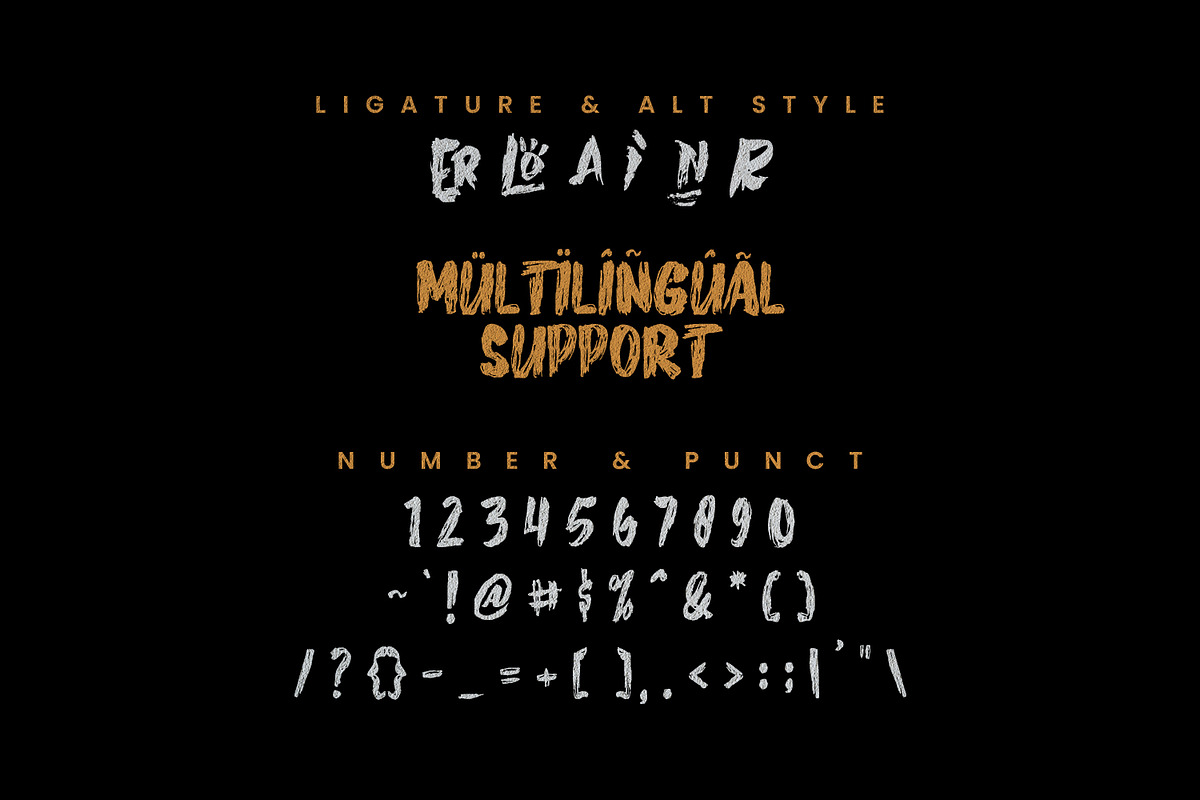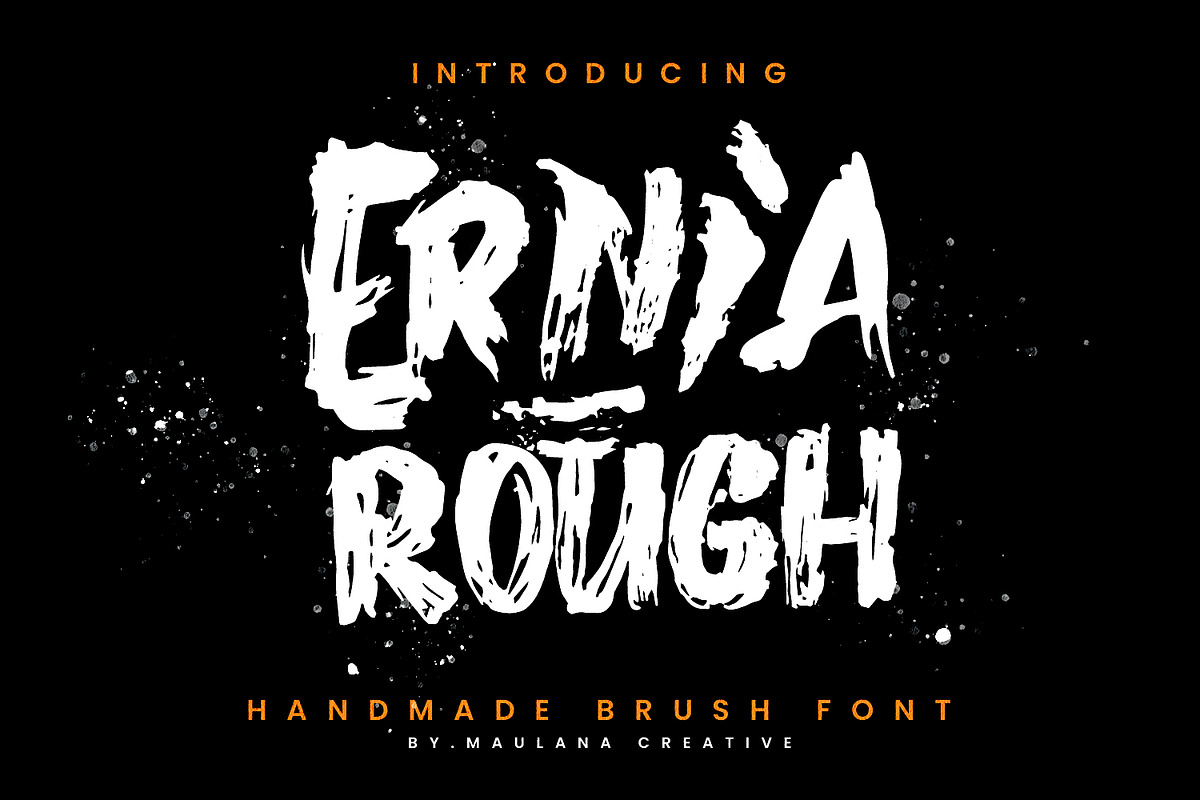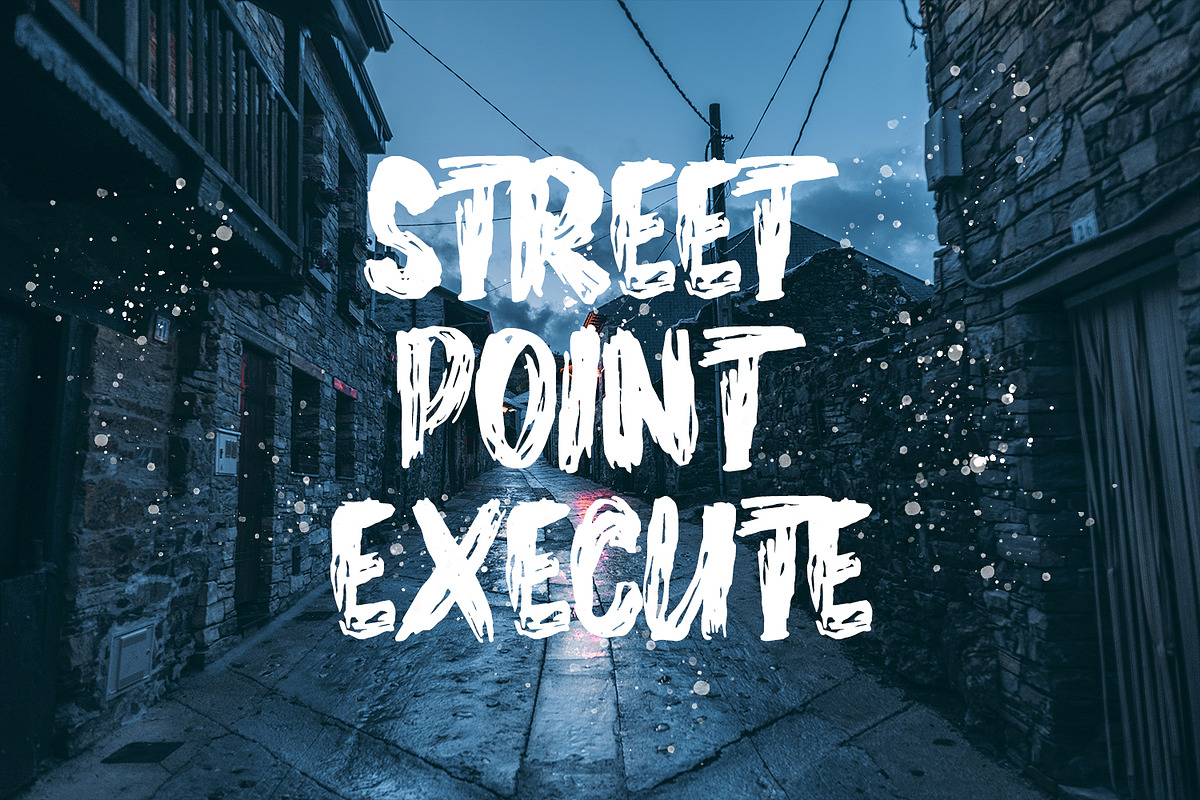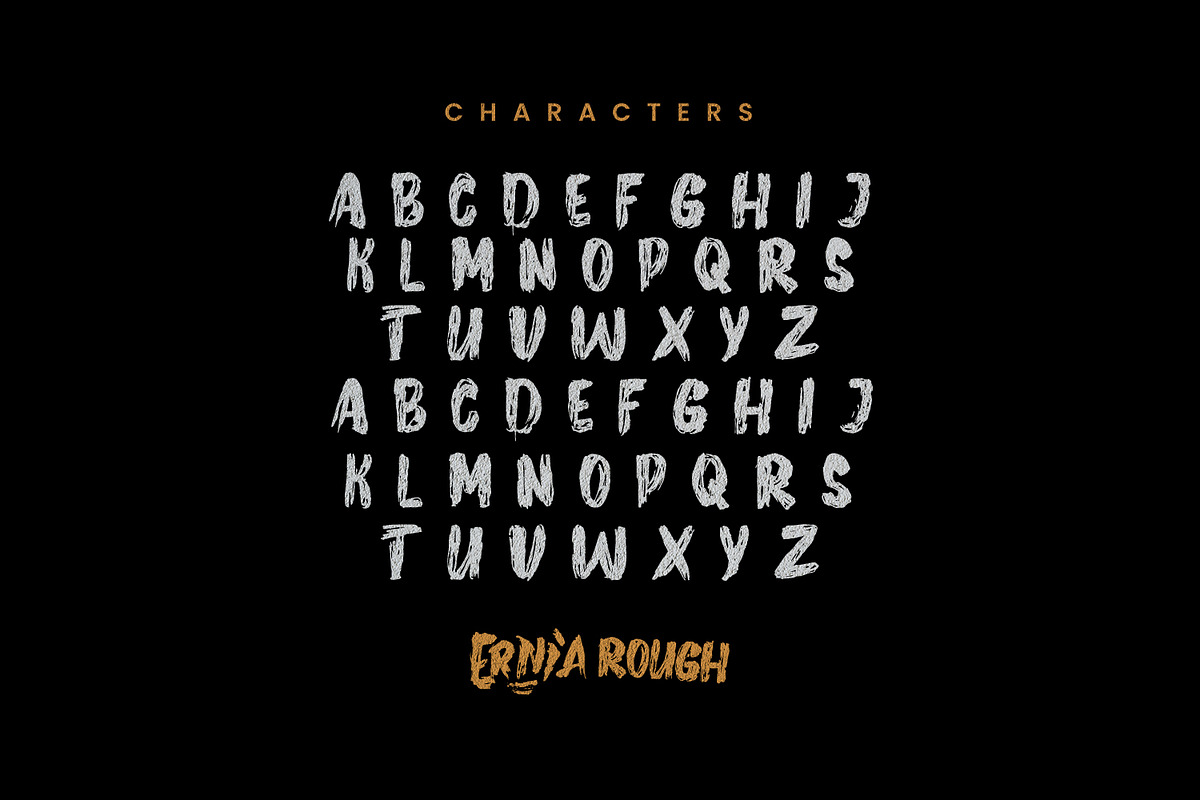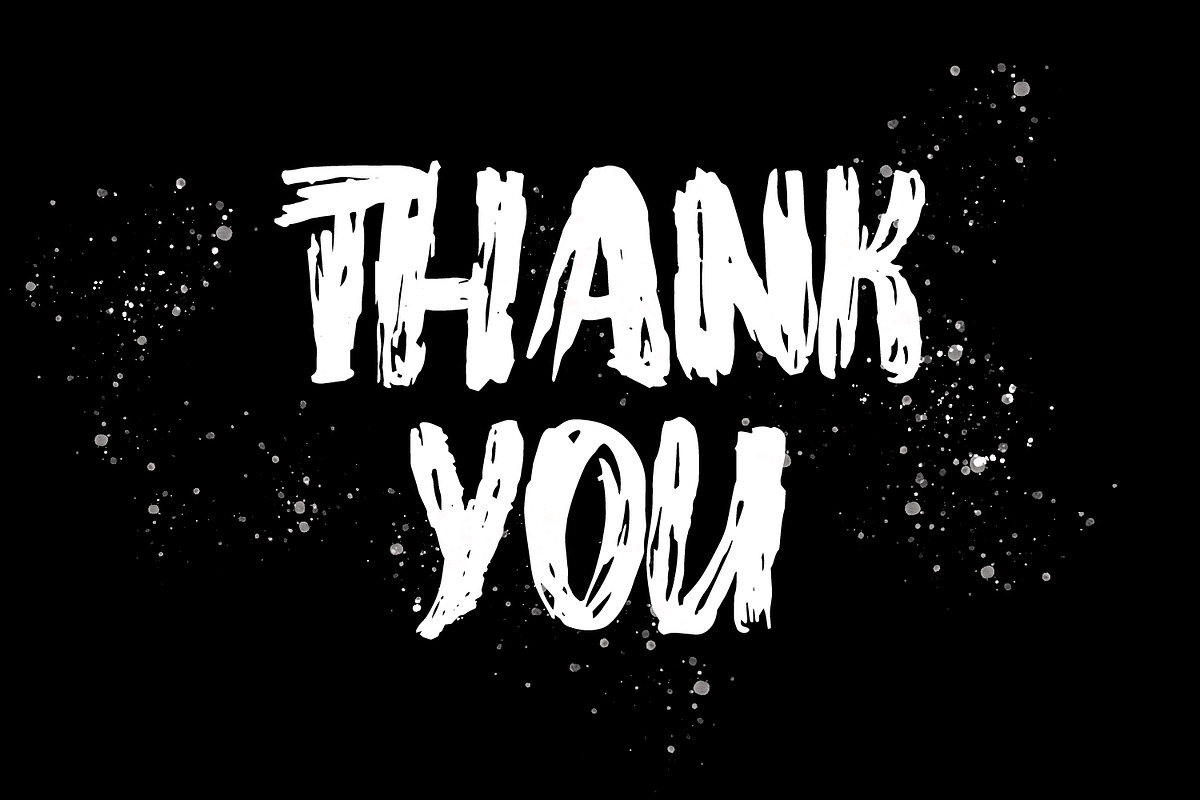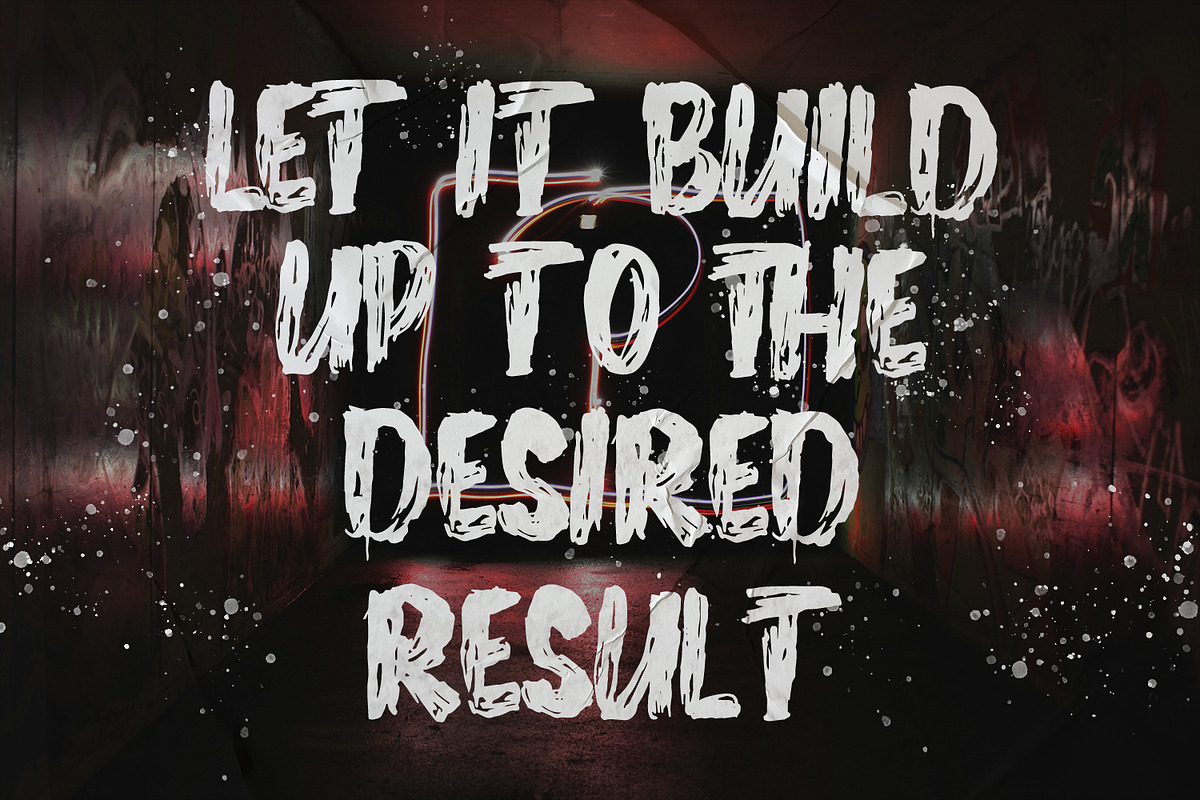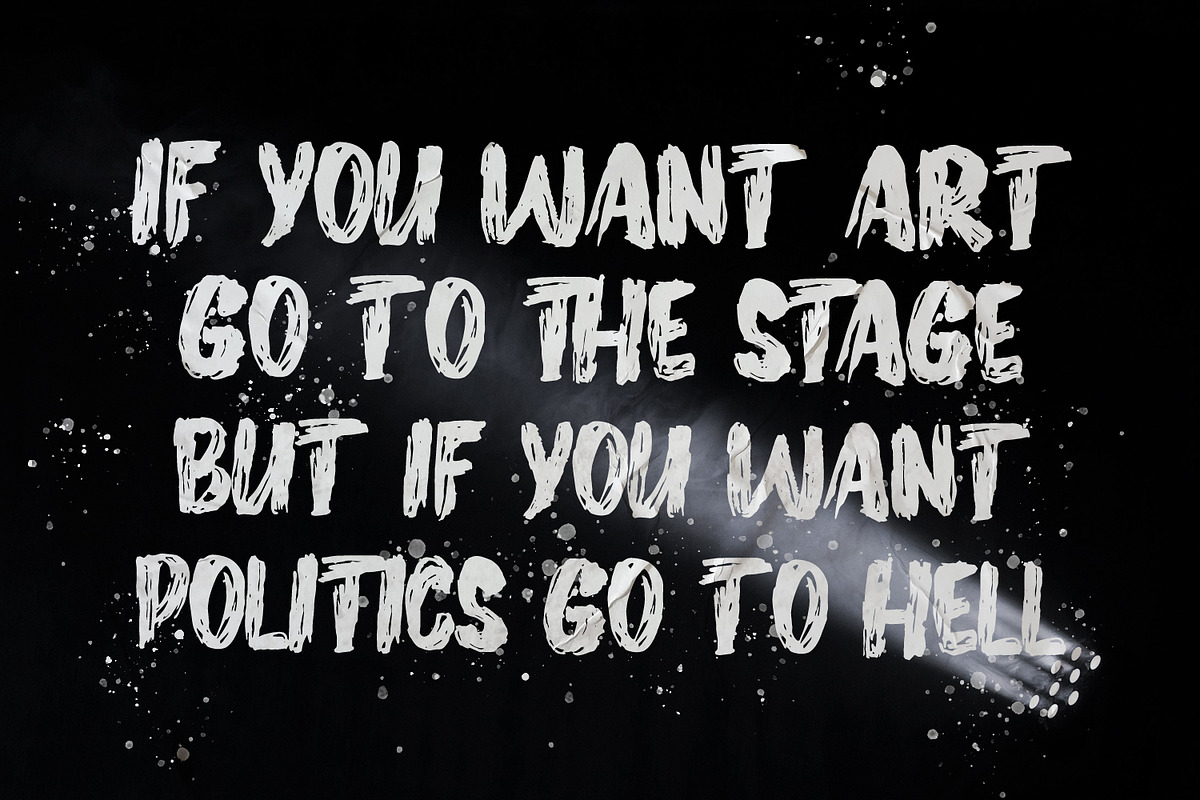
Ernia Rough Handmade Brush Font
Ernia Rough handmade brush font. Heavy stroke, fun character with a bit of ligatures. To give you an extra creative work. Ernia Rough handmade brush font support multilingual more than 100+ language. This font is good for logo design, Social media, Movie Titles, Books Titles, a short text even a long text letter and good for your secondary text font with script or serif. Make a stunning work with Ernia Rough handmade brush font.